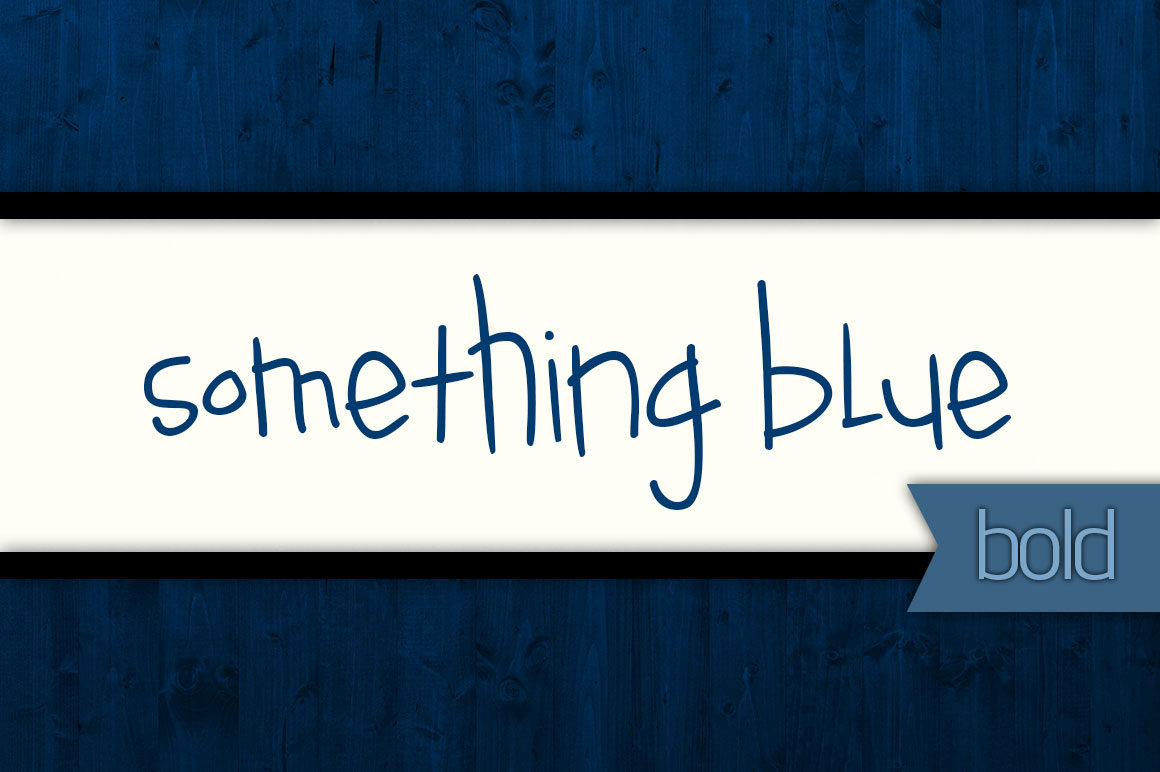
HomeScript FontsSomething Blue Bold Font Script Fonts Something Blue Bold Font FacebookXPinterestWhatsApp About Something Blue Bold Font A fun, crafty handwritten font that is quirky but legible. Great for crafts and cards! DOWNLOAD ON CREATIVE FABRICAThis font is sold and delivered by Creative Fabrica. Font Canyon may earn a commission if you buy through this link. People also explored Quantum Script Font Nightmarish Font Little Farmhouse Font Taillor Amillate Font Red Blood Font Matelda Font Remained Font Mellow Bliss Font The Gwathmey Script Font 311 0 TagsSomething Blue Bold Font Previous articleSomething Blue Light FontNext articleOrganic Fridays Font LEAVE A REPLY Cancel reply Comment: Please enter your comment! Name:* Please enter your name here Email:* You have entered an incorrect email address! Please enter your email address here Website: Save my name, email, and website in this browser for the next time I comment. Personal Use Free Historise Personal Use Free Read more about this font The Shocker Personal Use Free Read more about this font No Virus Personal Use Free Read more about this font Vinograd Personal Use Free Read more about this font BLOG Using Fonts in Digital Marketing: Tips to Strengthen Your Brand Identity In the realm of digital marketing, every visual element plays a crucial role in shaping a brand's identity, and fonts are no exception. The... How to Install and Use Fonts on Windows, macOS, and Web Projects 5 Fonts That Will Dominate Design Trends in 2026 Modern Sans-Serif Fonts That Brands Love in 2025